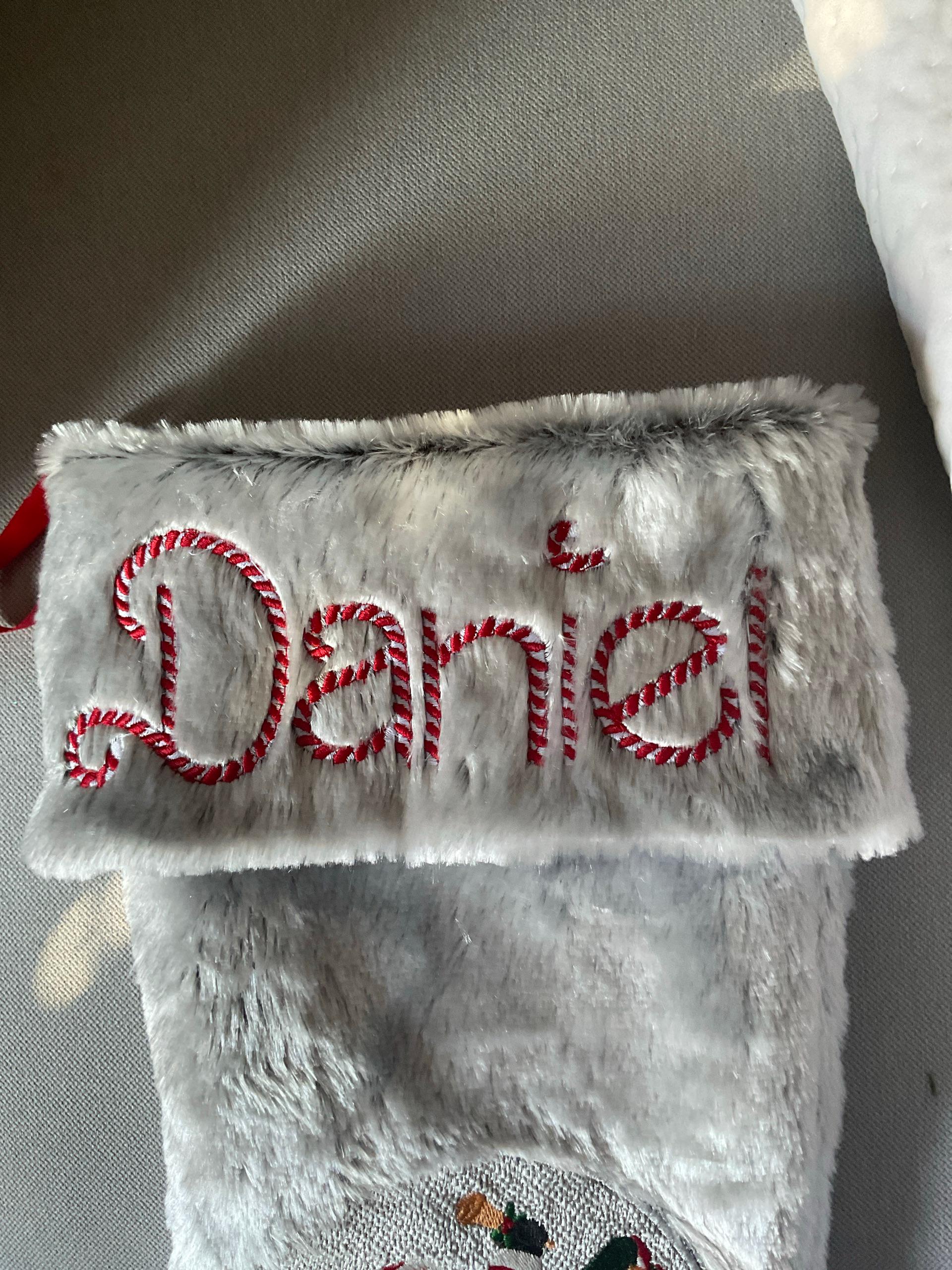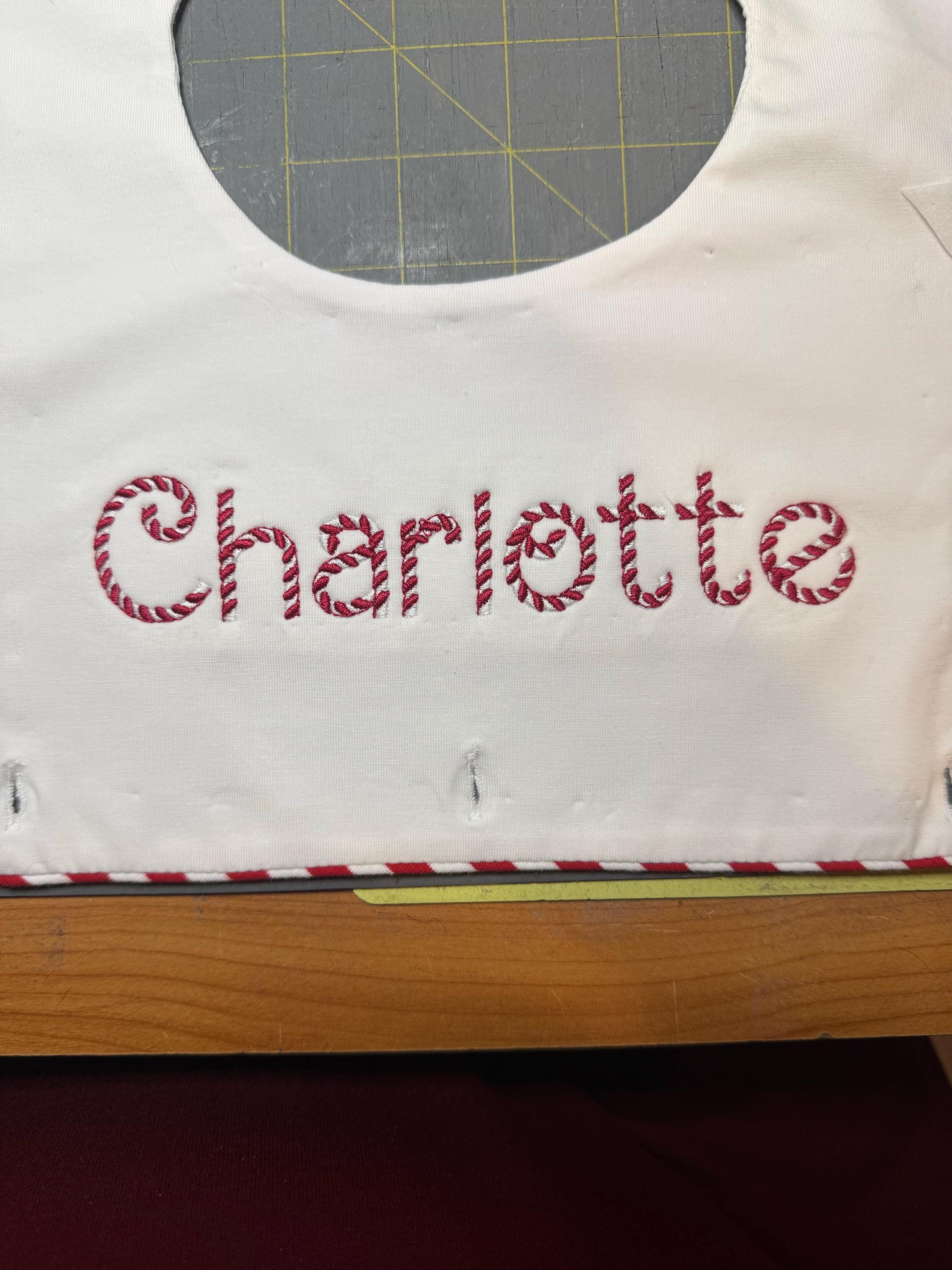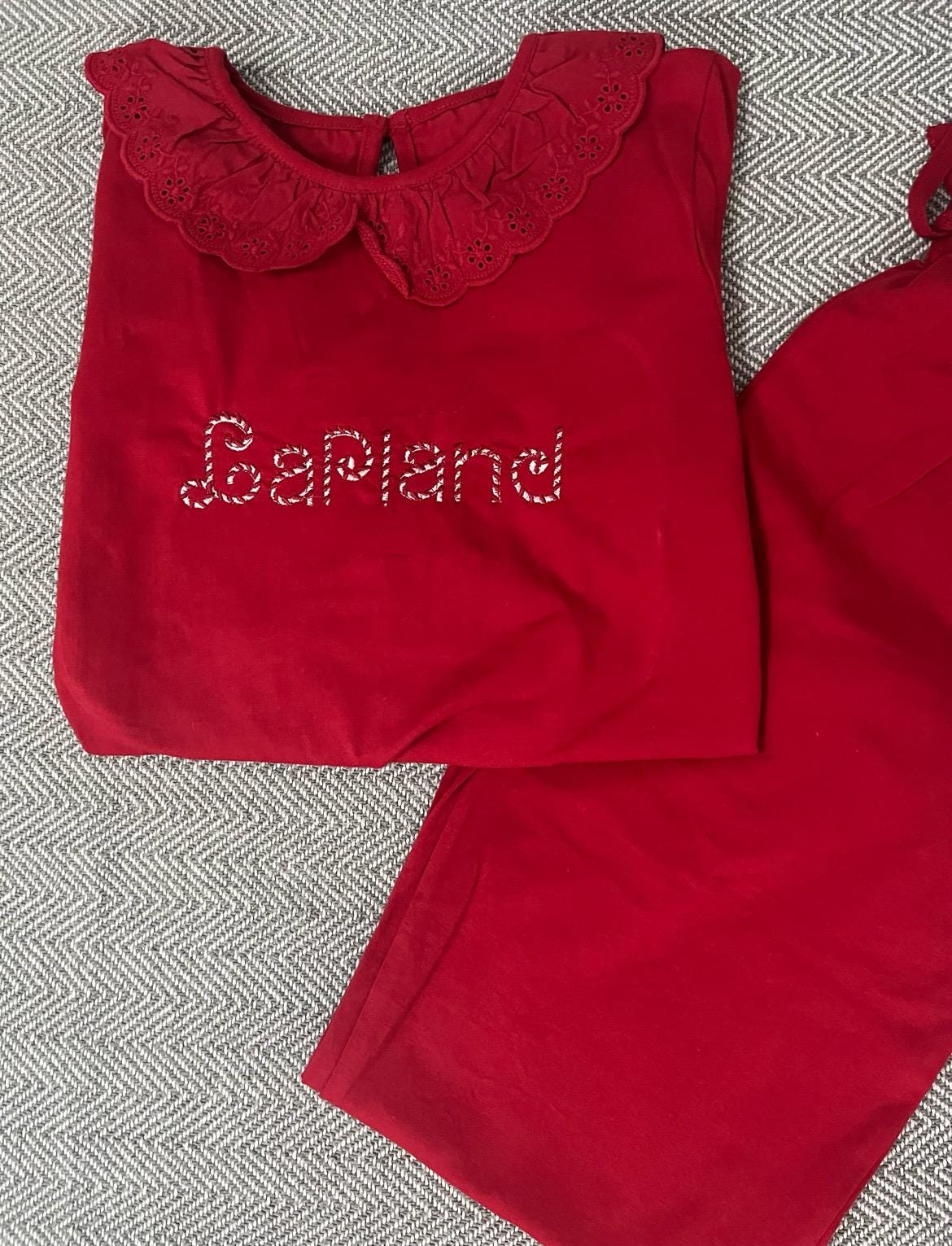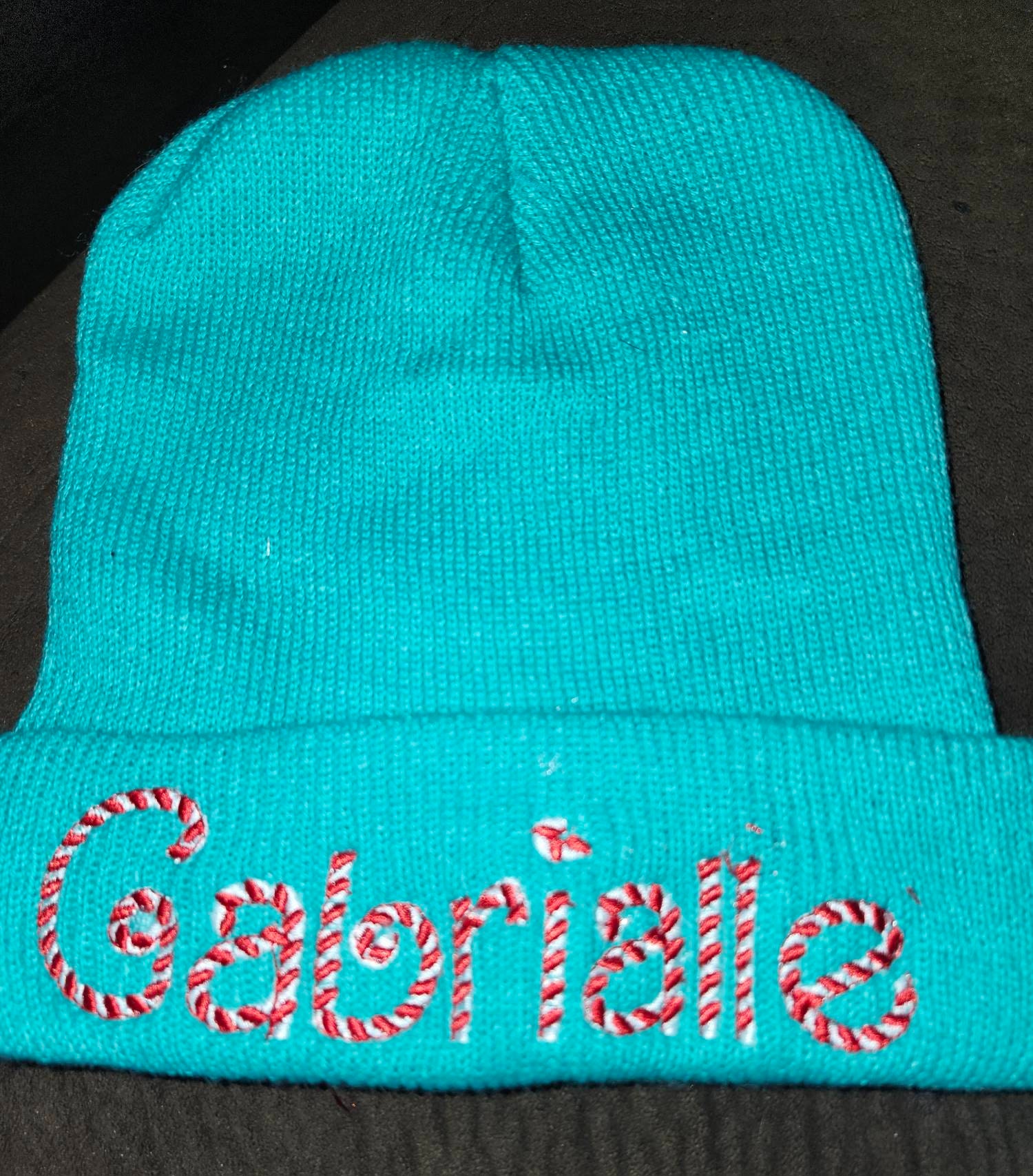
Classic Candy Cane Font is a 2-color in-the-hoop alphabet perfect for seasonal monograms and kids' projects. This candy cane embroidery font includes uppercase, lowercase and numbers in sizes from 1.3" to 3.3" and stitches cleanly at 5620 stitches. Use the in-the-hoop alphabet to add Christmas font charm to stockings, gifts and garments. The candy cane font works in common embroidery formats (PES, DST, JEF, VP3, etc.) and is optimized for a 4x4 hoop, giving crisp two-color striped lettering ideal for holiday monograms and playful kid designs.
- Design contents: uppercase, lowercase, numbers
This is an in-the-hoop alphabet font with uppercase, lowercase and numbers; each character is a 2-color design with a stitch count around 5620 and comes in six sizes from 1.3" to 3.3".
Yes — the two-color letters are straightforward in-the-hoop stitches, but familiarity with loading files and hoop placement helps; the design's single 4x4 hoop sizing and clear color stops make it beginner-friendly.